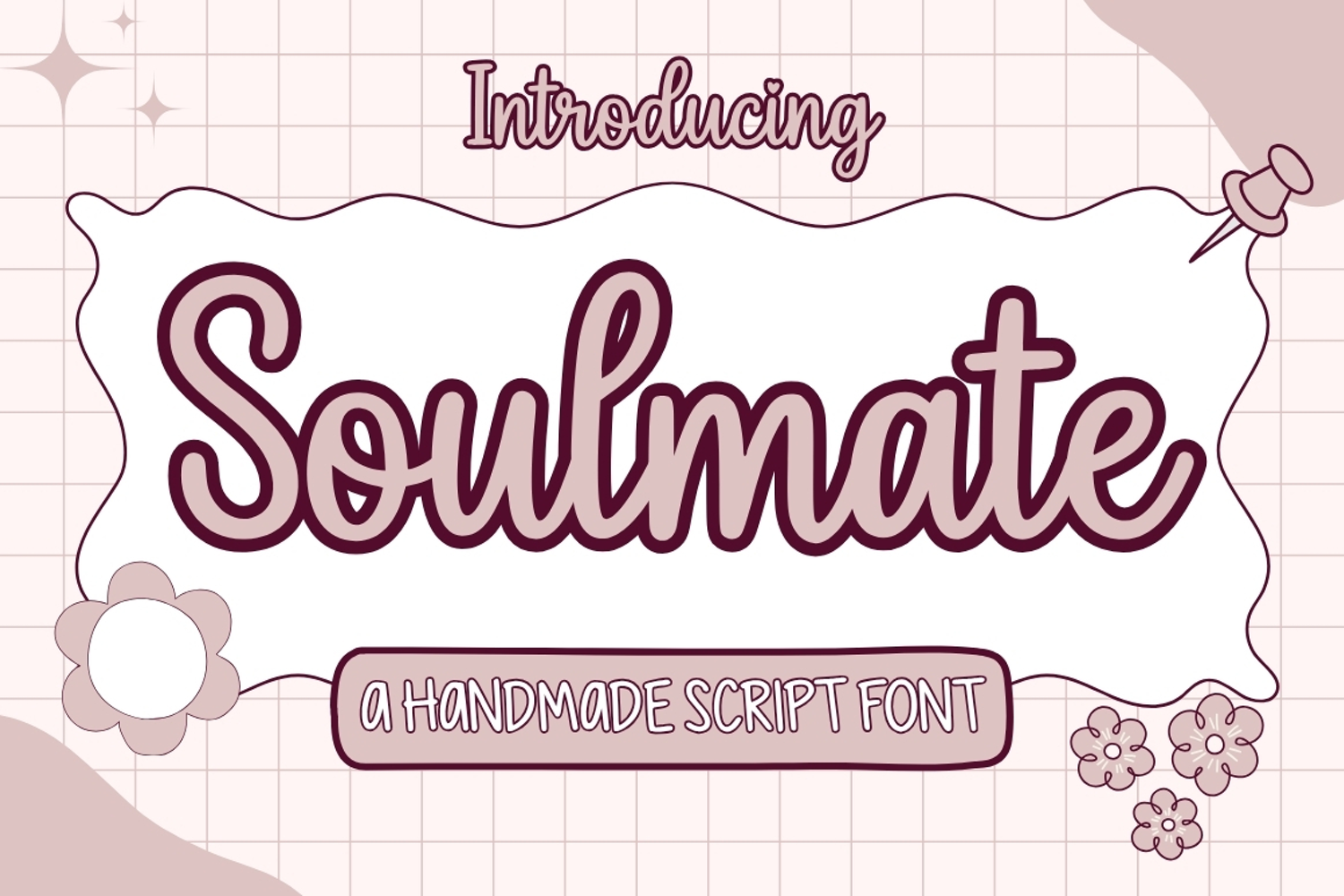
Soulmate is a modern script font that beautifully blends elegance, softness, and artistic sophistication. With its graceful flowing strokes, stylish curves, and refined letterforms, Soulmate creates a romantic and aesthetic impression while maintaining a clean, contemporary feel.
Perfect for wedding invitations, romantic quotes, fashion branding, beauty products, logos, stationery, social media designs, packaging, and editorial projects, Soulmate brings a timeless charm to every composition.
Elegant yet expressive, delicate yet confident, Soulmate is designed for words that deserve to feel beautiful, and unforgettable.